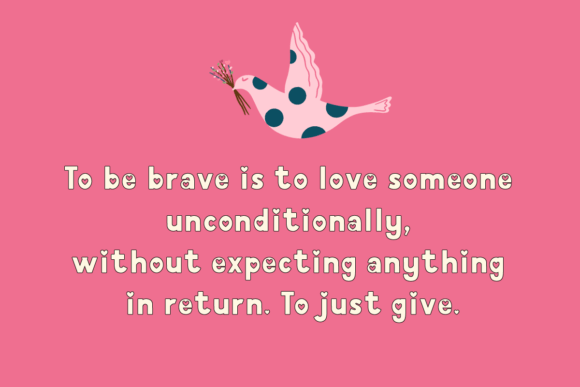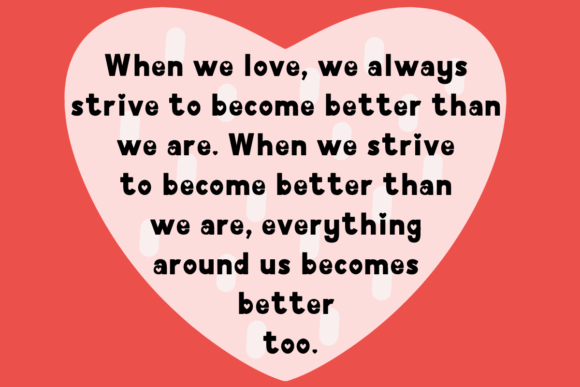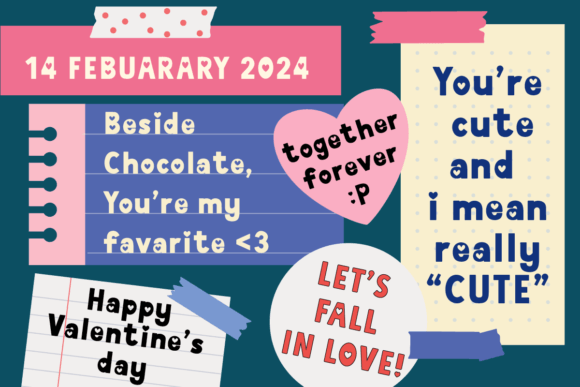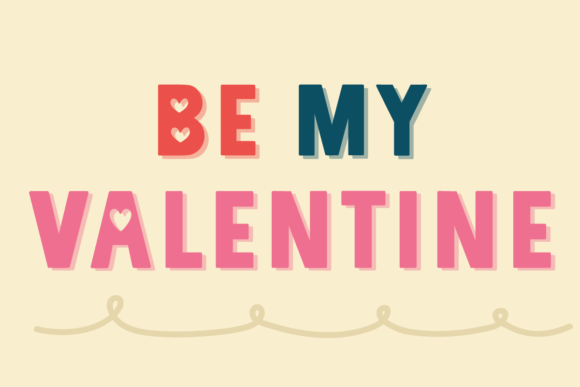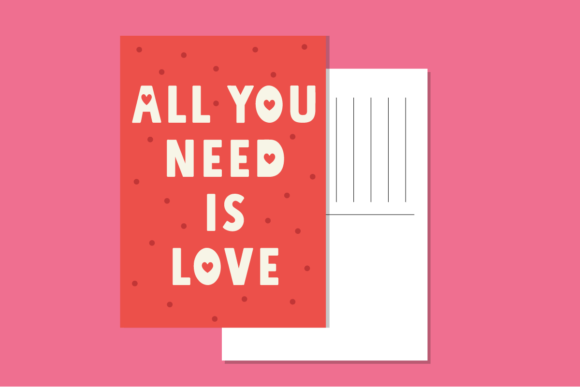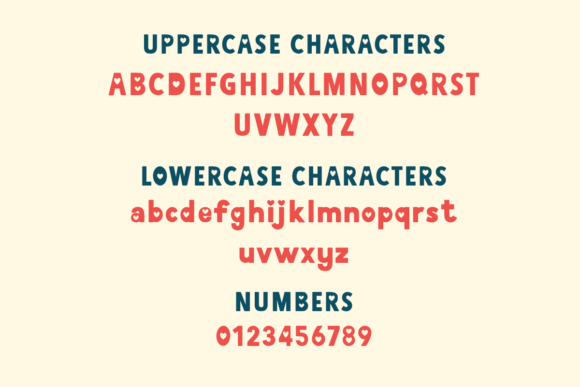
Introduction to Hello Cupid Font
Who hasn’t felt a rush of excitement while brainstorming a creative project, searching for the perfect font to bring their ideas to life? As a designer, you know how a single, high-quality font can make or break a project. And if you’re anything like me, you’re always on the lookout for that special something that adds an extra touch of magic to your designs.
That’s where the Hello Cupid Font comes in – a delightful, hand-written font adorned with heart decorations that’s sure to capture the essence of love and romance. Perfect for Valentine’s Day projects, greeting cards, and other creative endeavors, this font is a valuable addition to any designer’s toolkit.
Key Features of Hello Cupid Font
- Unique Hand-Drawn Style: Hello Cupid Font features a charming, hand-drawn design perfect for creative projects requiring a personal touch.
- High-Quality Design Resource: This font is a high-quality design resource ideal for designers, artists, and writers seeking a distinctive and engaging aesthetic.
- Creative Freedom: Hello Cupid Font offers users the creative freedom to experiment with various styles, from romantic to whimsical, making it an excellent choice for designers working on unique projects.
Honest Review: Hello Cupid Font
As a designer, I’m always on the lookout for high-quality design resources to elevate my creative projects. Recently, I stumbled upon the Hello Cupid Font, and I must say it’s a lovely addition to my design arsenal.
- ✨ The font is incredibly versatile, suitable for a wide range of creative projects, from romantic wedding invitations to modern branding materials.
- ⚠️ The font may not be the best choice for projects requiring a bold, edgy look, as it tends to lean more towards a soft, elegant aesthetic.
- ⚠️ The font family is relatively small, which may limit its use in projects requiring multiple font sizes or styles.
Overall, I’m impressed with the Hello Cupid Font. Its high quality and versatility make it an excellent addition to any designer’s toolkit. While it may have its limitations, it’s a great choice for designers looking for a beautiful, elegant font for their creative projects.
For a high-quality design, pair the Hello Cupid Font with a transparent background or a subtle texture to create a visually appealing creative project. Experiment with different font sizes and colors to add depth and interest to your design.
The Hello Cupid Font is a versatile design resource that can be used in a variety of creative projects, including wedding invitations, birthday cards, and social media graphics. Its elegant and playful style makes it perfect for designs that require a touch of romance and whimsy.